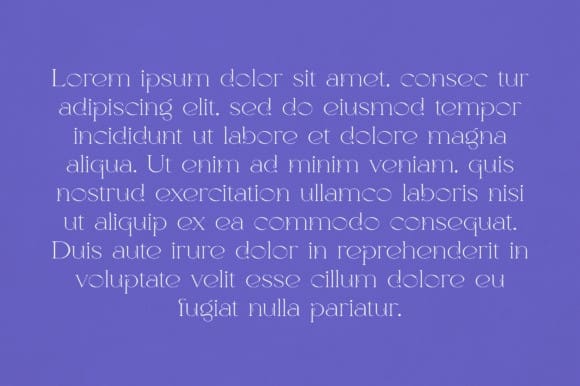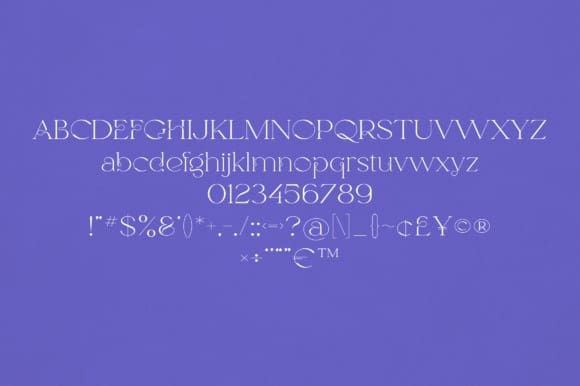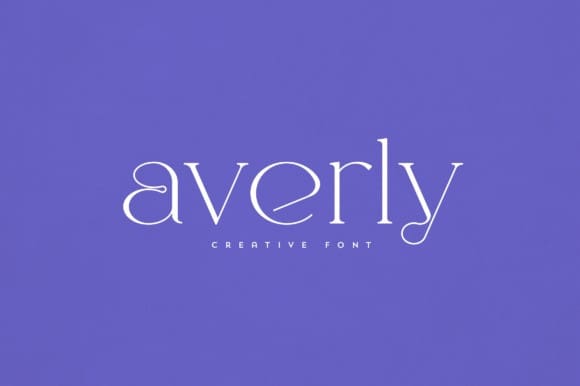
Averly Font
Averly Font is an elegant and versatile font that will make your typography truly unique! It will enchant every logo, branding, headline, or plain text!